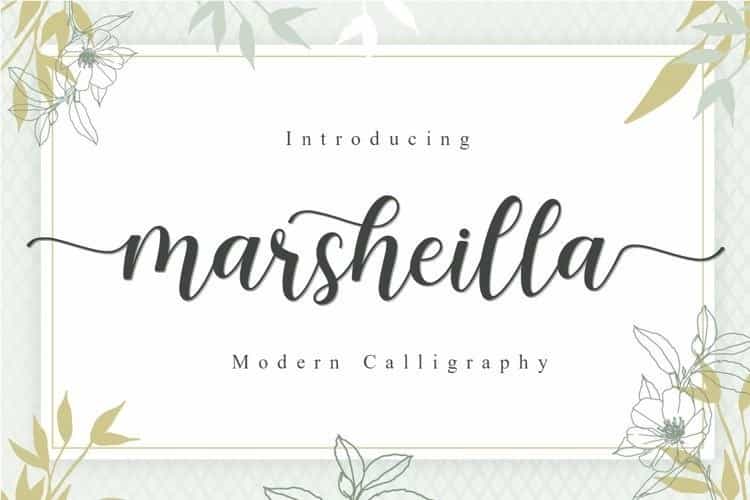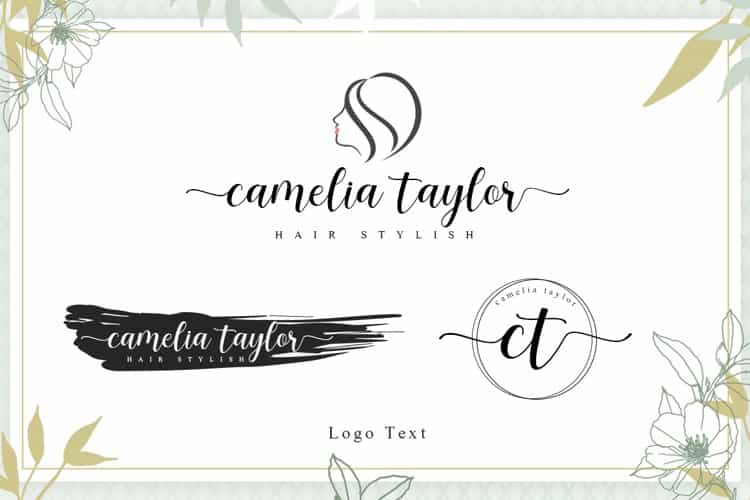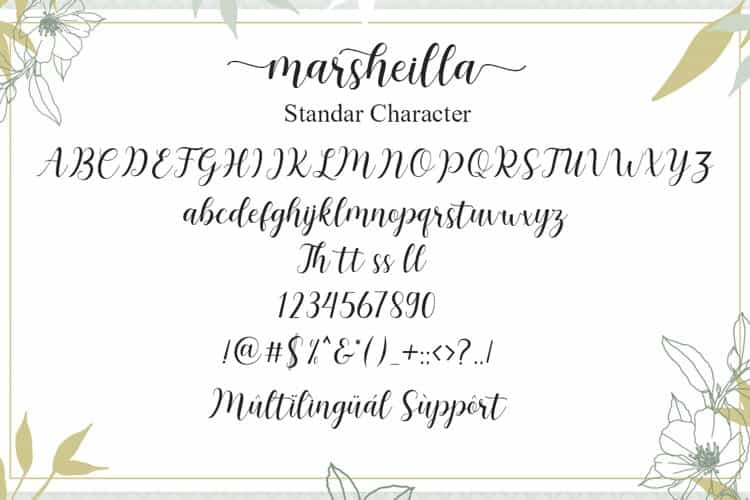
Marsheilla is a distinct blend of modern and classical Calligraphy Typeface. The style fluctuates and changes like dance letter smooth, crisp and easy. Marsheilla Font is perfect for wedding, event invitations, escort cards tables, menus for the header display logos, slider blogs personalized address, packaging, stamps cards, greeting cards, etc.